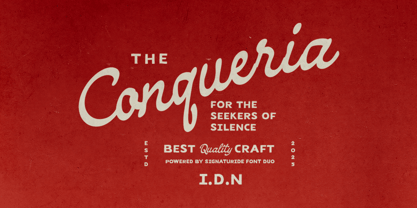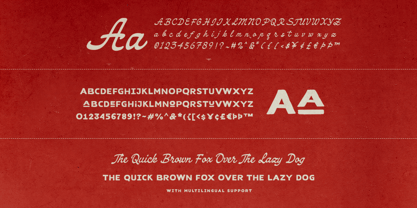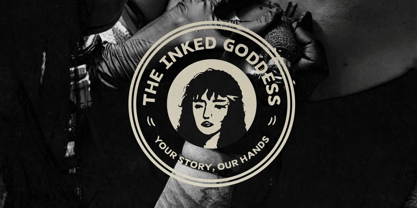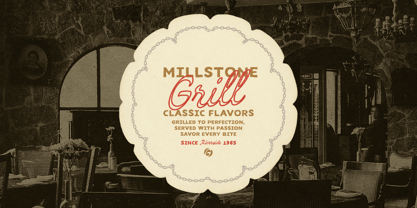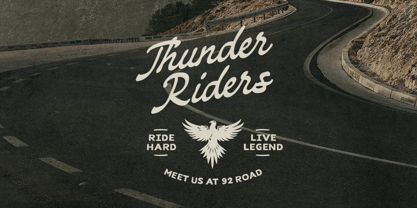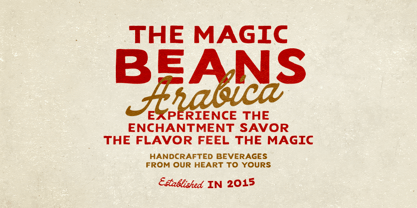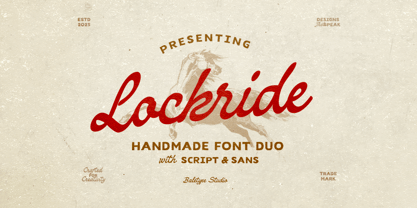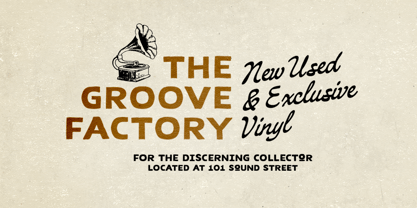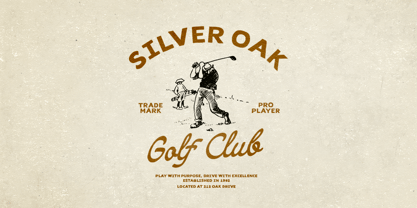
Lockride
by Bale Type
The Lockride Font Family was designed by Dzikrul Aulia and published by Bale Type. Lockride contains 2 styles and family package options. More about this family
Lockride is a vintage font duo that features a hand-lettered sans and script combination, both designed to capture a classic, old-school aesthetic. With its nostalgic charm and authentic character, this font is perfect for a wide range of creative uses. Whether you're designing a poster, book cover, logo, branding materials, or even an inspirational quote, Lockride adds a bold, timeless touch that stands out. This versatile font duo is especially well-suited for projects with outdoor, travel, or adventure themes, bringing a rugged yet stylish vibe to your design work. In addition to its unique visual appeal, Lockride also supports multiple languages, making it an excellent choice for global projects that need both personality and practicality.